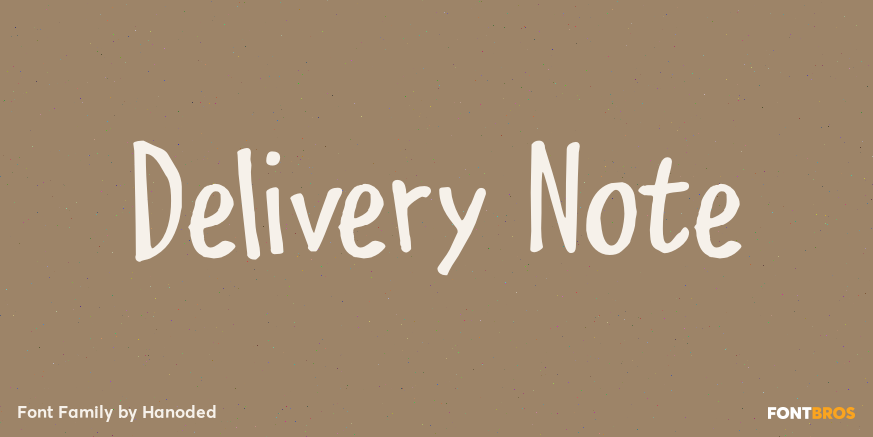
Delivery Note
About Delivery Note
I like fonts that look like scribbled notes? so I made one! Delivery note was made with a sharpie pen on paper. I didn\’t ?clean? the glyphs too much, as I wanted it to look like a genuine note script. It comes with double letter ligatures for the lower…